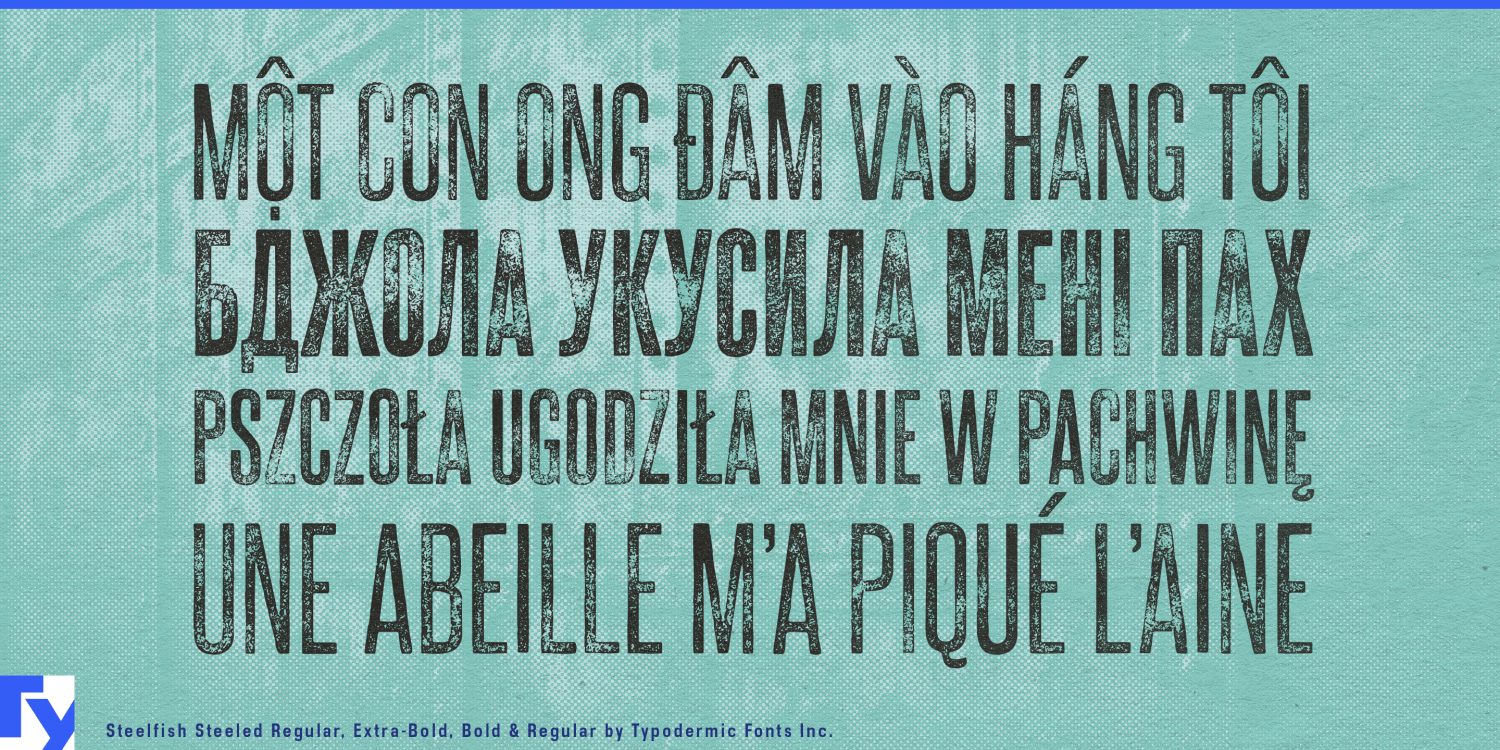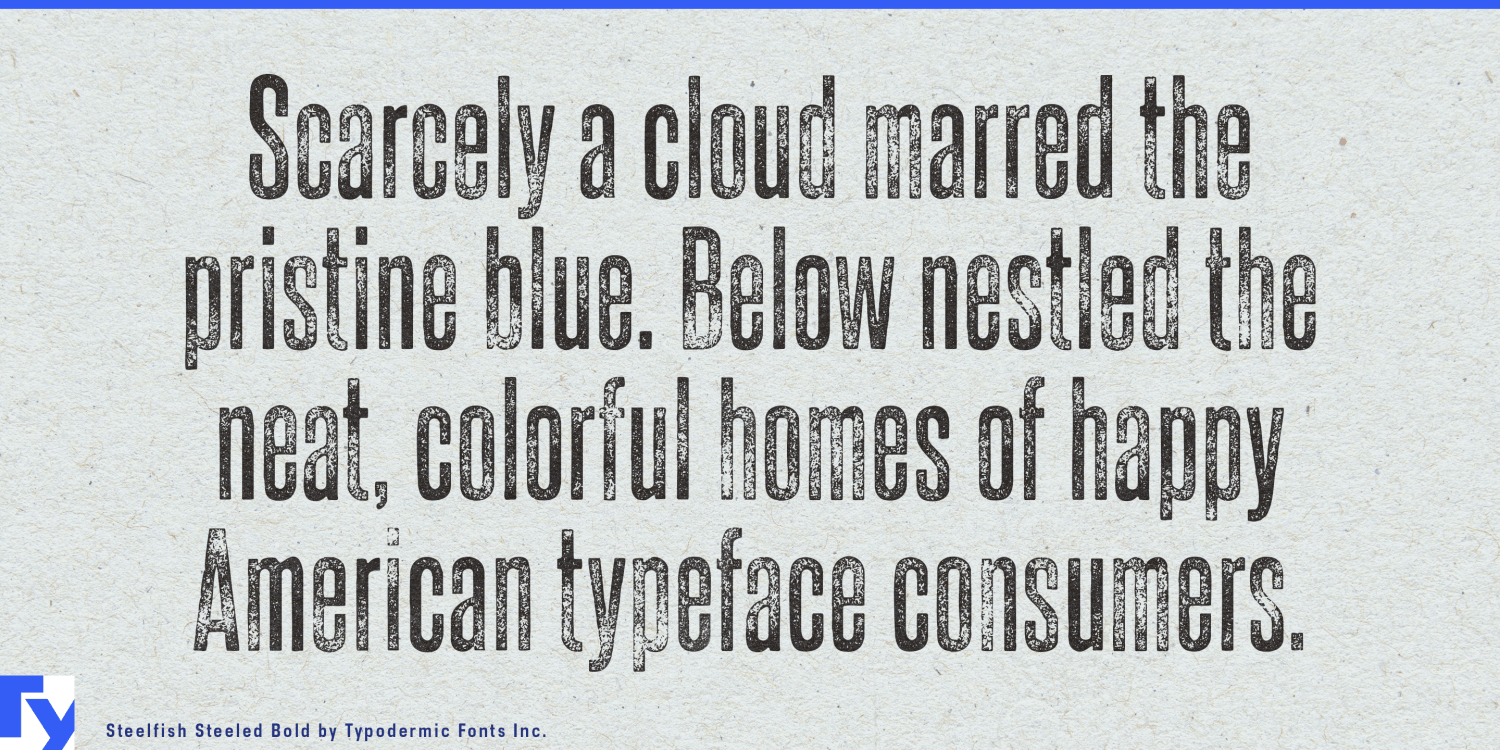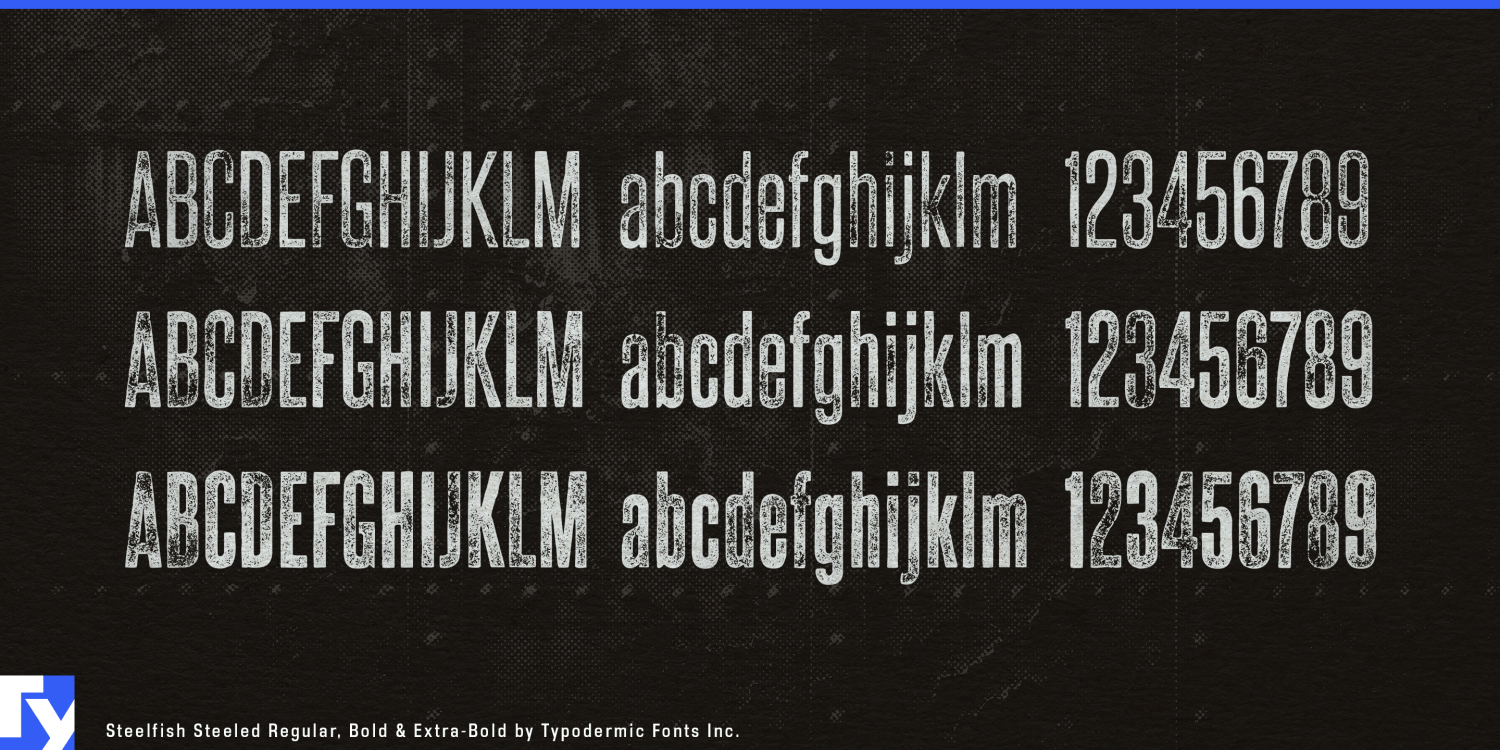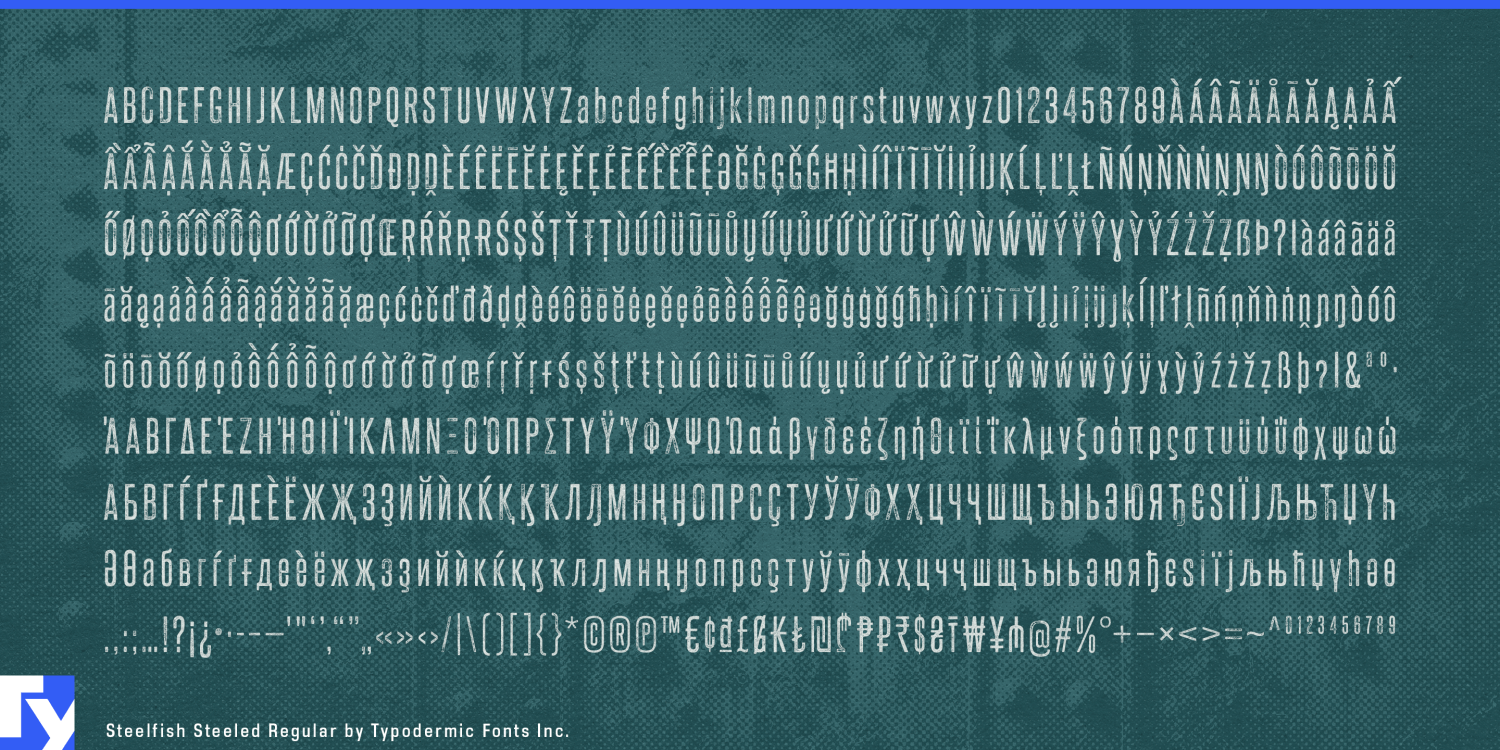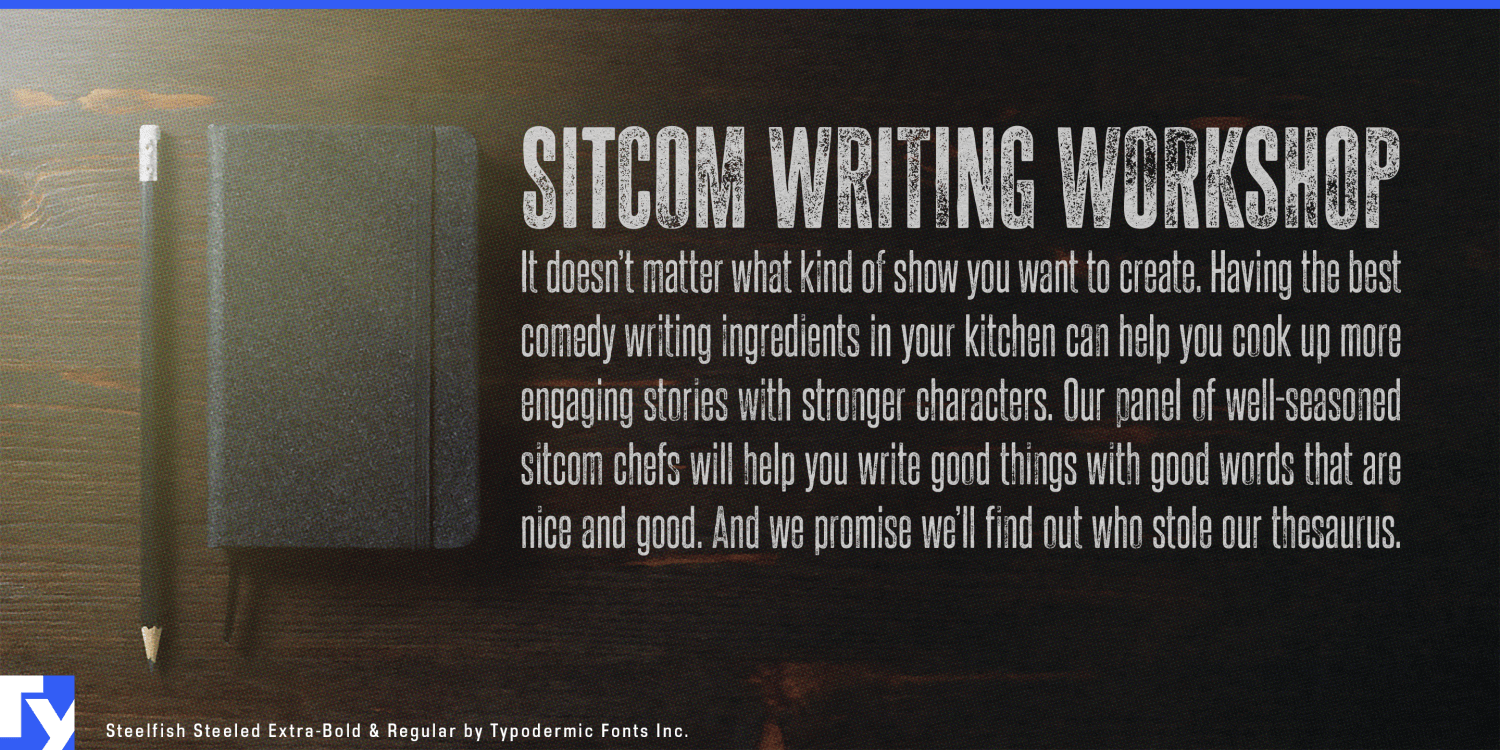
About Steelfish Steeled
Welcome to the foundry floor, where Steelfish Steeled forges letters with the raw power of industrial might. This is a visual battlecry for designs that demand respect, crafted for those who aren’t afraid to get their hands dirty in the pursuit…